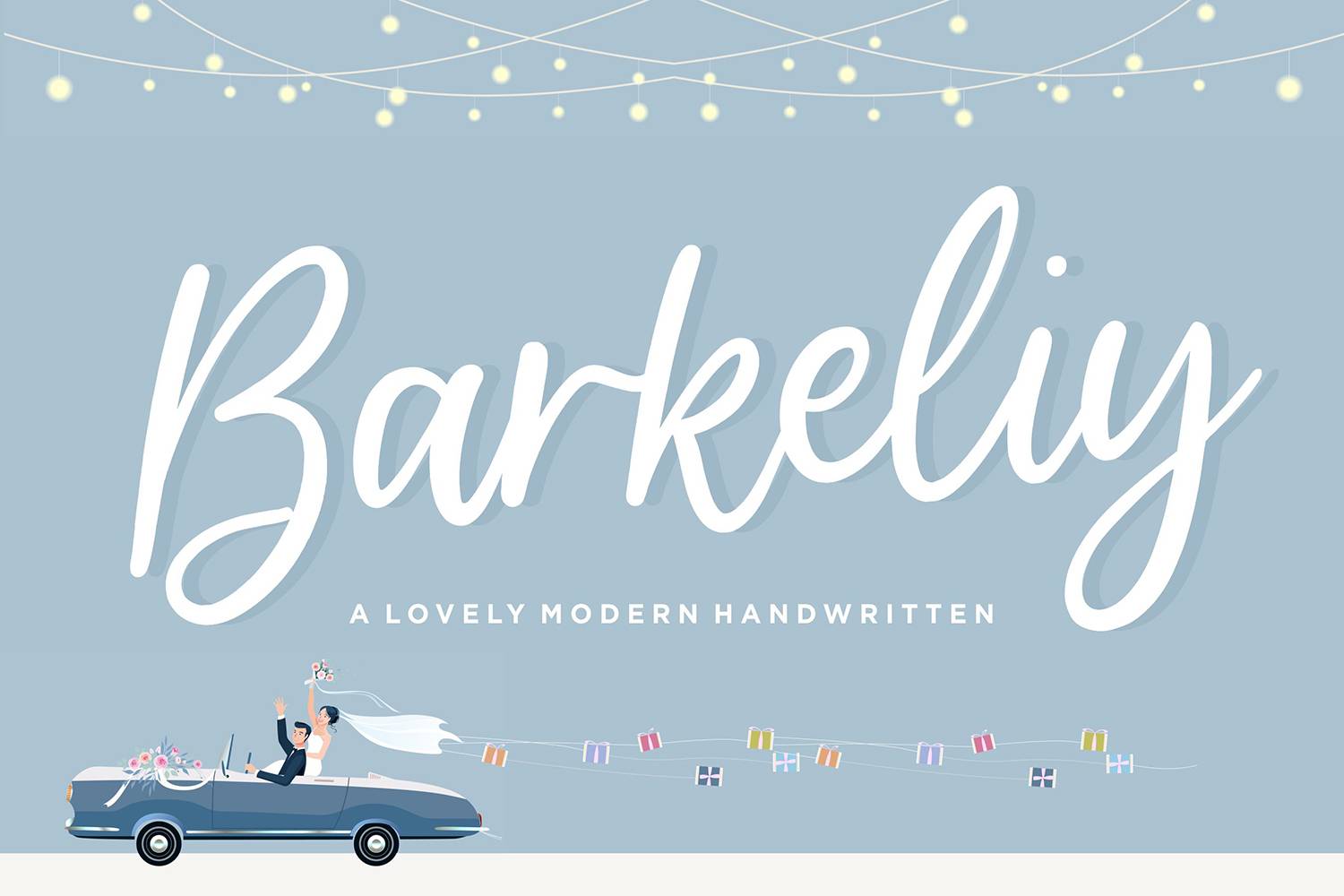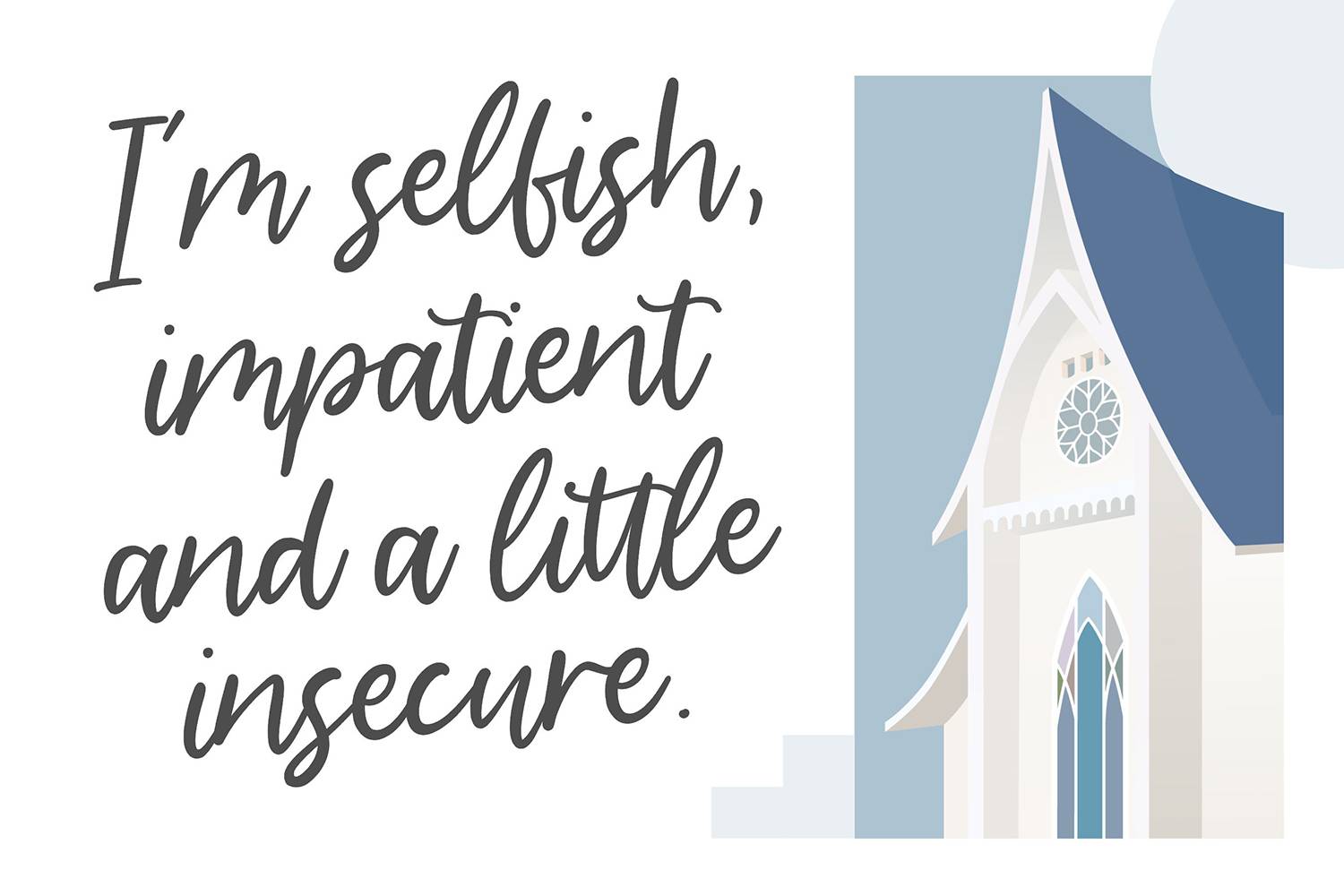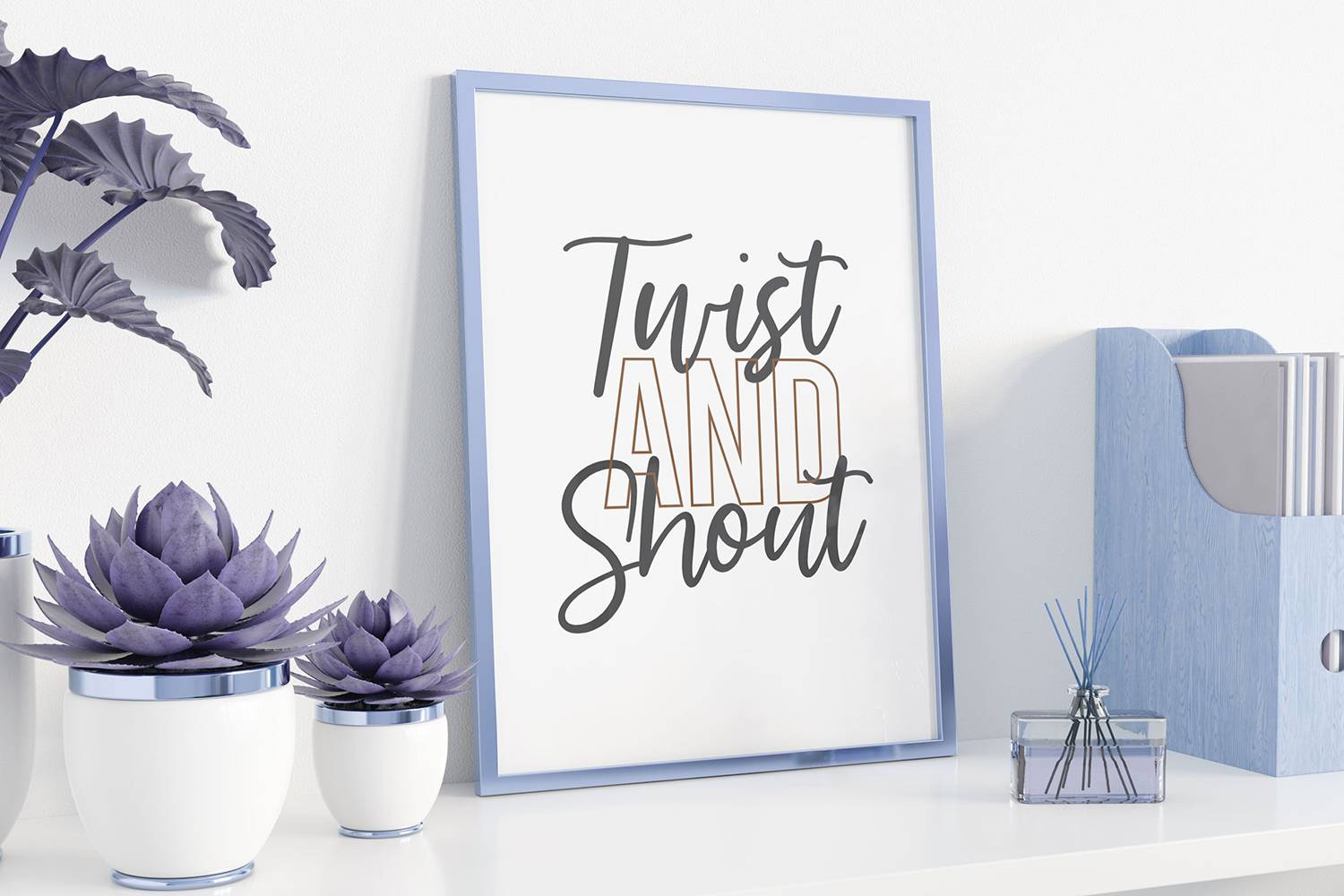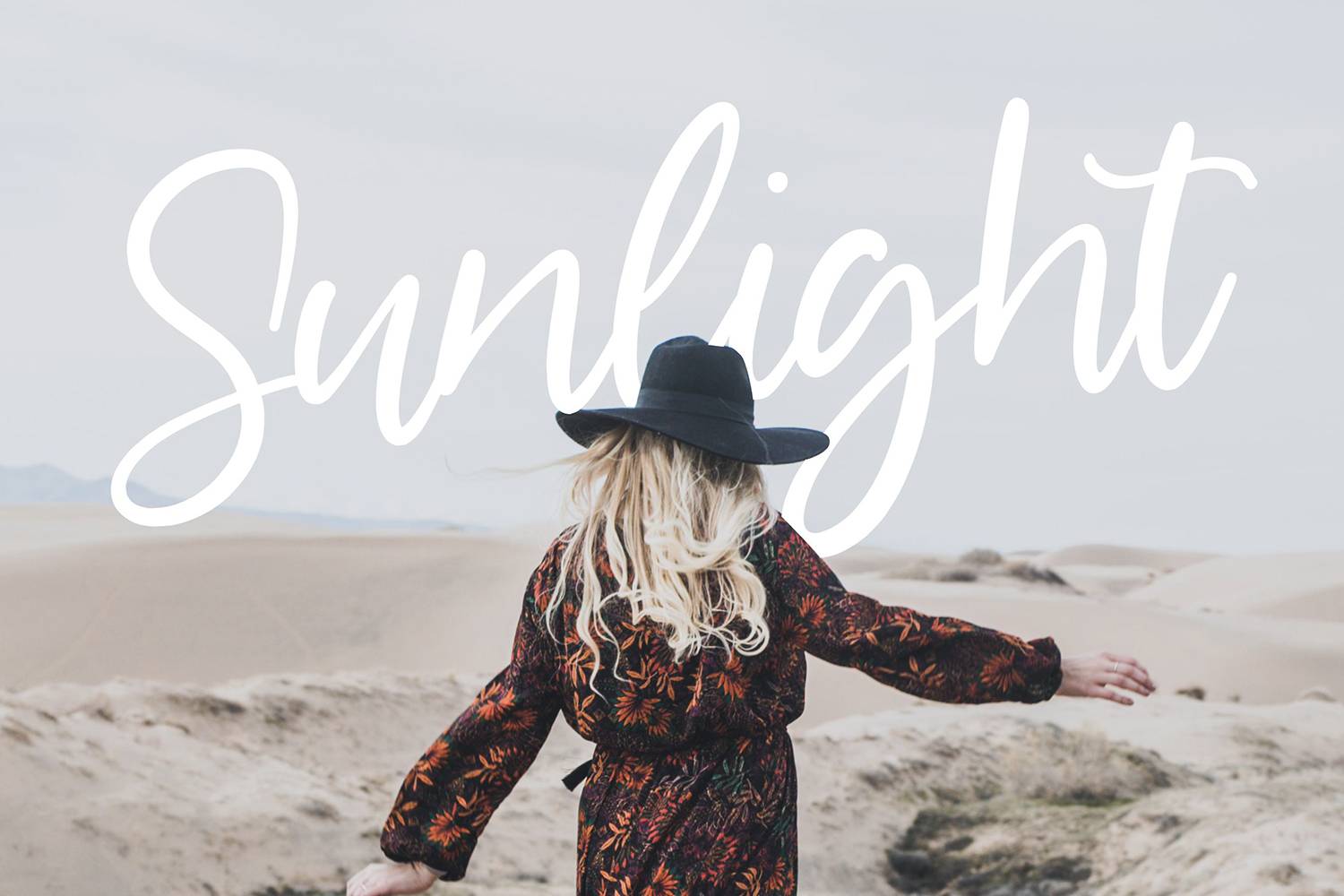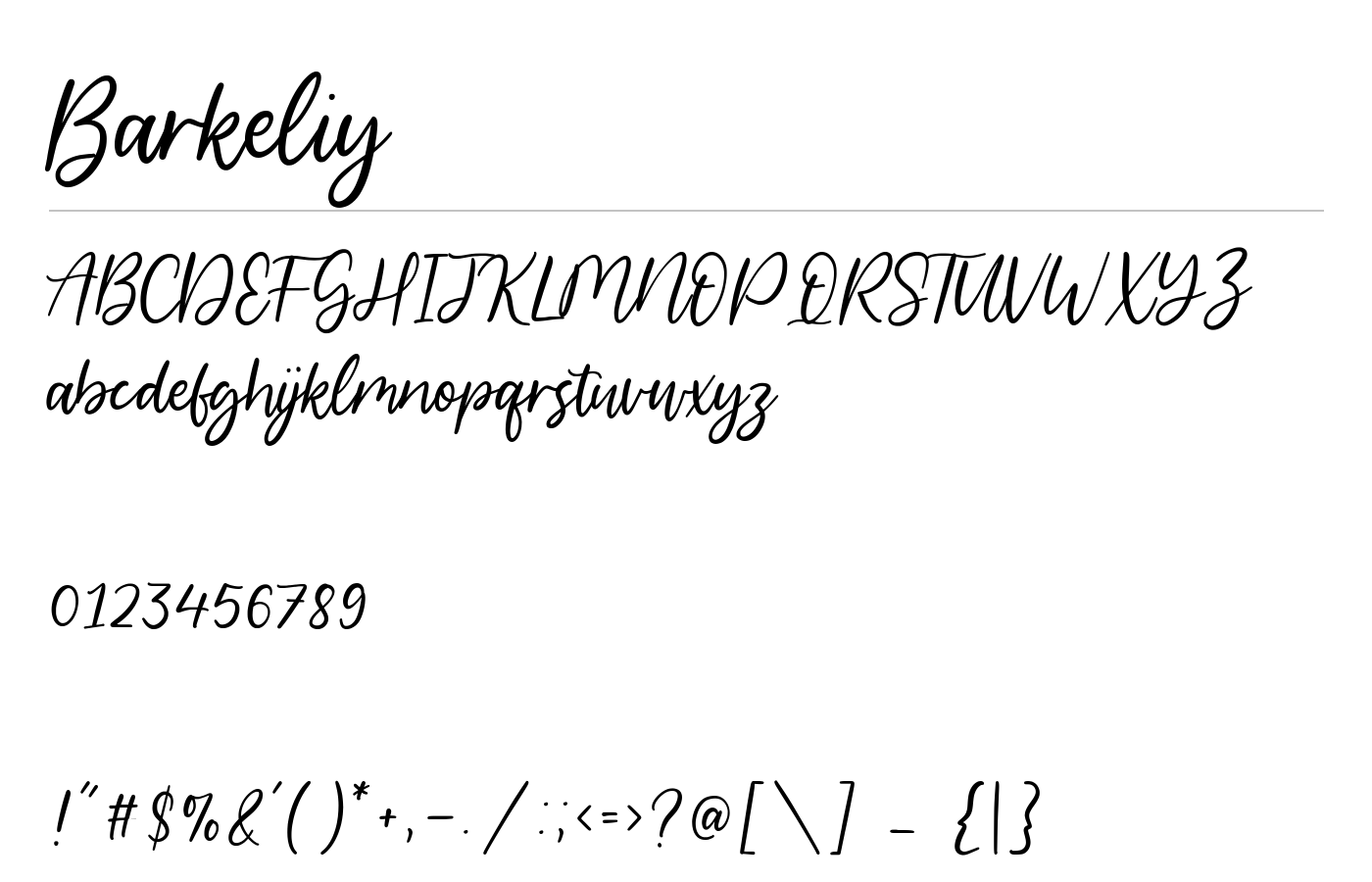
Barkeliy is a stylish script font with a handwritten feel, featuring smooth, flowing strokes and moderate contrast. Its elegant yet casual style makes it perfect for branding, invitations, and artistic projects that seek a personal and approachable touch. The font’s distinctive letterforms and clear readability work well for creative headlines and expressive design elements.
Barkeliy Font
About Barkeliy Font